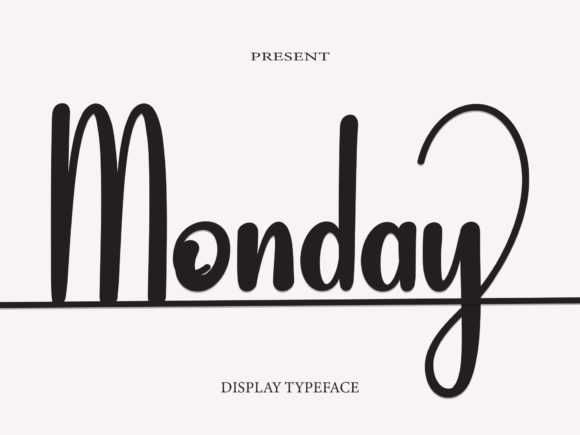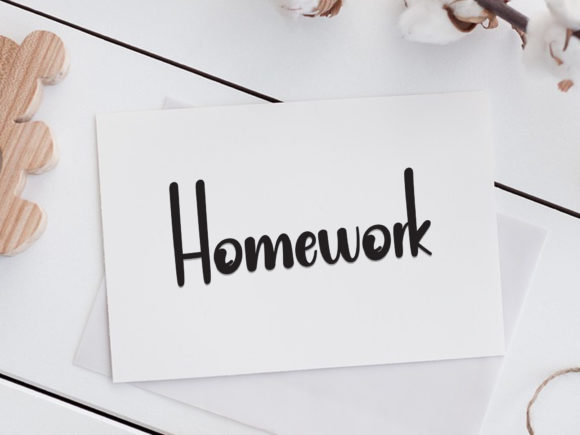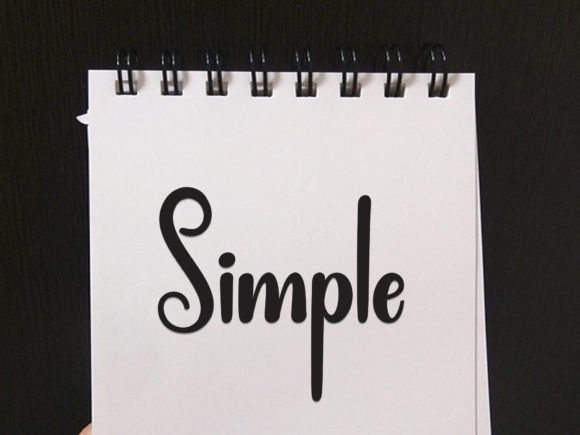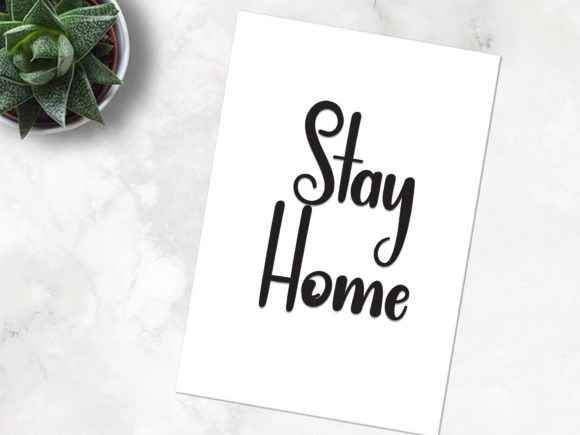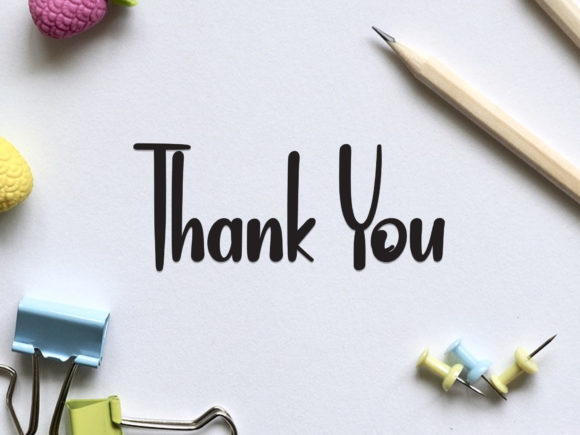
Monday Font
About Monday Font
Monday is a cute handwritten font that is carefully crafted to produce the expected results. This font can be used to write cards, invitations, letters and more.